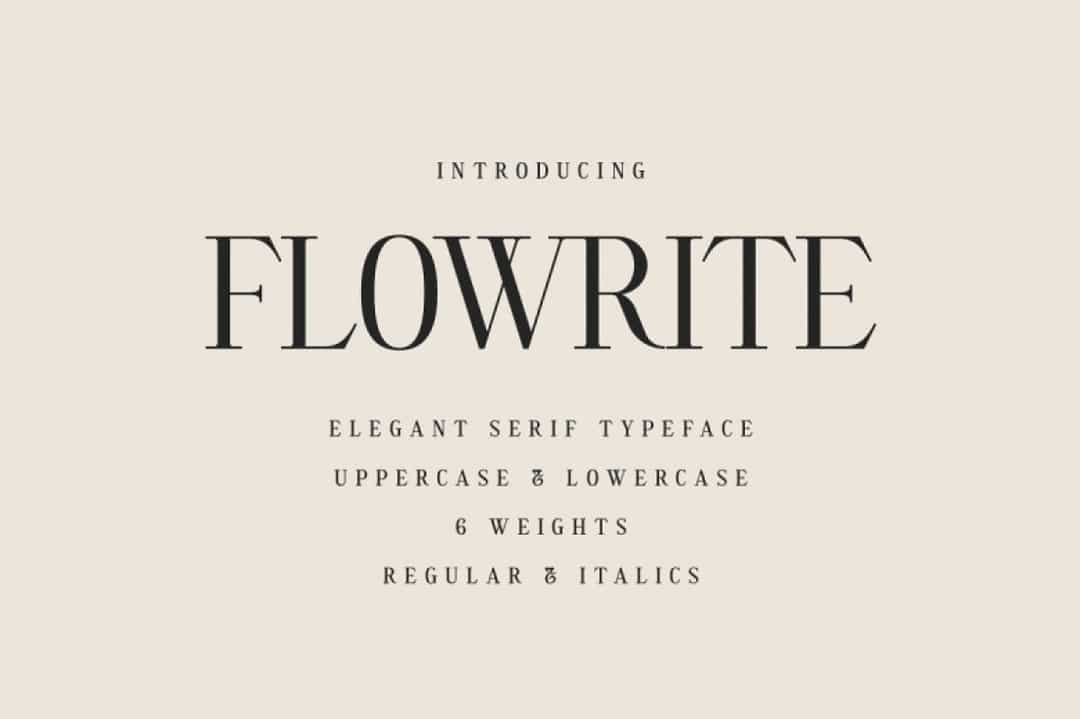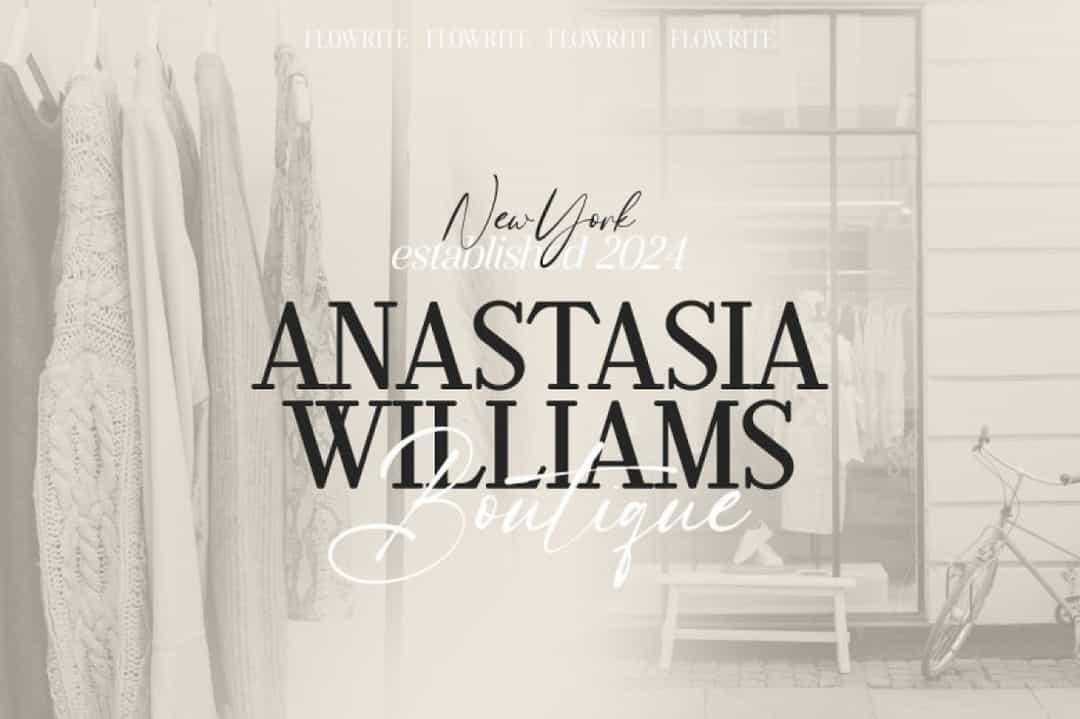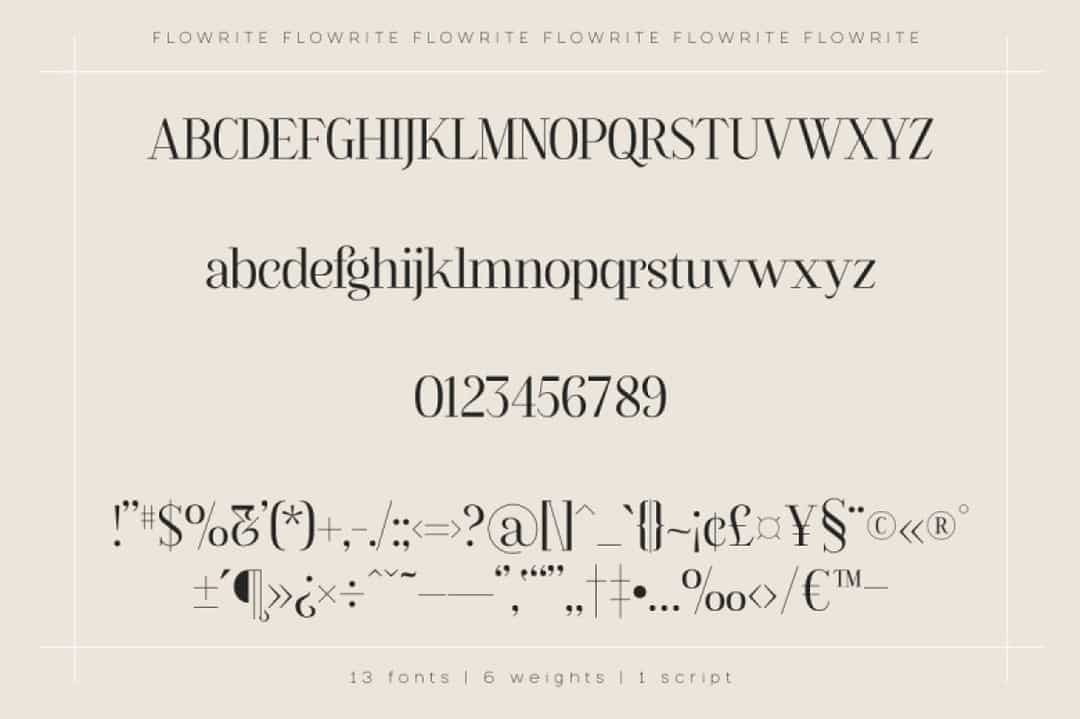
Discover Flowrite Font, part of the Serif collection—a versatile and unique font perfect for adding a personal touch to your projects. Download it for free and enjoy crafting designs with style, from invitations to social media posts. This font is available exclusively for personal use, giving you the freedom to create without limits. Unlock your creativity with Flowrite Font today!
The Flowrite Serif Font strikes the perfect balance between timeless elegance and contemporary style, featuring six weights in both italic and regular styles and chic script with modern calligraphy. Crafted to appeal to a broad audience, Flowrite supports 87 languages for global communications in editorial, branding and design projects.